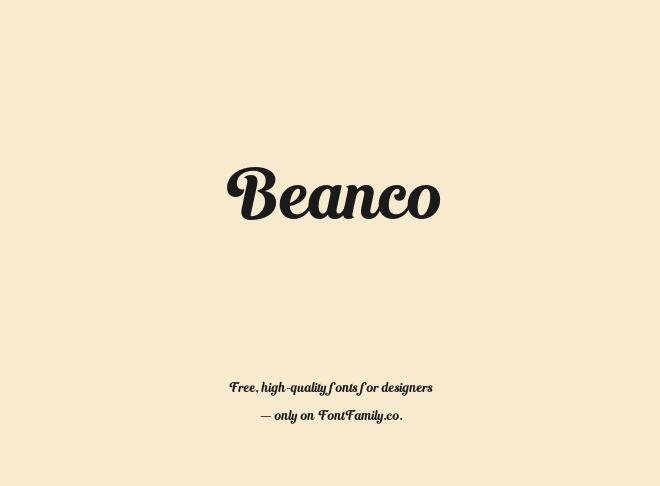
Beanco Font
Beanco Font, designed by Beanco Design Studio, is a playful and rounded handwritten typeface with a charming personality. It is perfect for design projects that require a friendly and approachable feel such as children's books, playful branding, and casual social media posts. The font's rounded edges give it a soft, inviting vibe, making it a perfect choice for designers aiming to create a warm and welcoming atmosphere. Its handwritten style is reminiscent of the casualness found in Comic Sans, yet with a more refined and unique touch. Beanco Font is free for personal use, making it a great choice for hobbyist designers or professionals working on personal projects. Its distinct style helps it stand out from other fonts, ensuring that your design will catch the viewer's eye.